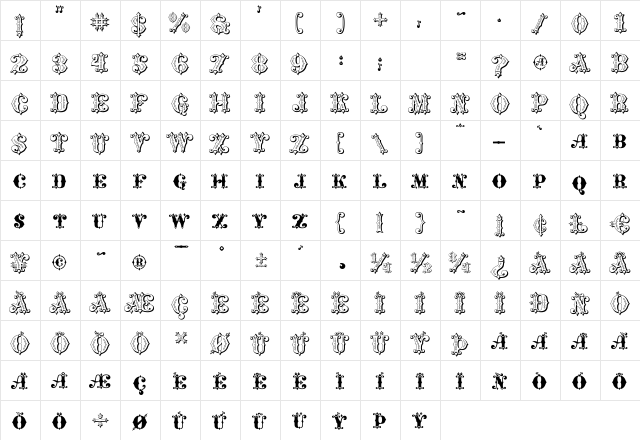
Maverick's Lucky Diamonds Regular
Design Context for Maverick's Lucky Diamonds Typeface
Maverick's Lucky Diamonds is a composed and adaptable typeface that performs quietly and consistently across a wide range of design contexts.